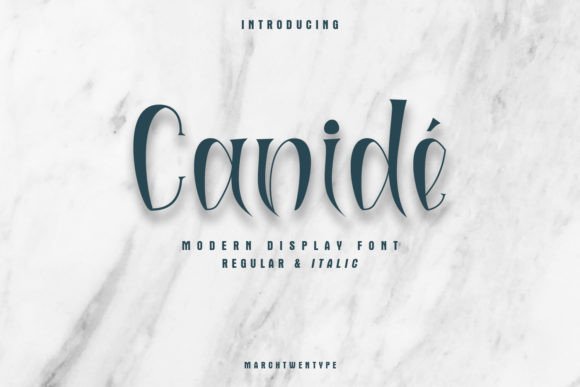
Canidé: A Versatile Display Font for Modern Design
Canidé is a modern display font that stands out for its unique shape and elegant tapering. Designed to balance masculine and feminine aesthetics, it offers a versatile solution for a wide range of design projects. Whether you're working on branding, web design, or print materials, Canidé brings a refined and sophisticated look that can elevate your work.
Understanding Canidé: What Makes It Unique?
At first glance, Canidé might seem like just another display font, but its design philosophy sets it apart. The font features a distinct tapering effect that gives it a sense of movement and elegance. This characteristic makes it ideal for headings, logos, and other visual elements where a strong, memorable presence is needed.
The balance between masculine and feminine traits in Canidé is one of its most appealing qualities. This duality allows it to be used across different industries and styles without feeling out of place. For instance, a tech startup might use Canidé for its website header to convey both innovation and approachability, while a fashion brand could leverage its fluidity for a more artistic touch.
Key Features of Canidé
- Unique Tapering: The font's distinctive shape creates a dynamic visual effect that draws attention.
- Gender-Neutral Aesthetic: Canidé works well for both male and female audiences, making it a flexible choice.
- Modern and Timeless: Its design blends contemporary trends with classic typography principles.
- High Readability: Despite its stylized appearance, Canidé remains legible at various sizes.
Where Canidé Fits Into Your Projects
Canidé is particularly effective in applications where visual impact is crucial. Its bold yet graceful structure makes it suitable for headlines, titles, and other prominent text elements. Here are some common scenarios where Canidé can shine:
- Branding and Logos: Canidé adds a touch of sophistication to brand identities, helping to create a memorable visual presence.
- Web Design: As a display font, Canidé can enhance the aesthetics of websites, especially when used for navigation menus or section headers.
- Print Materials: From business cards to brochures, Canidé brings a polished look to printed content.
- Marketing Campaigns: Its versatility makes it a great choice for advertising, social media graphics, and promotional materials.
Who Benefits from Using Canidé?
Canidé is not limited to a specific audience. Its adaptability makes it valuable for a variety of professionals and creators:
- Graphic Designers: They can use Canidé to add a unique flair to their designs without compromising readability.
- Business Owners: Entrepreneurs looking to establish a strong brand identity can benefit from Canidé’s balanced aesthetic.
- Content Creators: Bloggers, YouTubers, and social media managers may find Canidé useful for creating visually engaging content.
- Web Developers: Those focused on user experience can incorporate Canidé into their designs to enhance visual appeal.
Strengths and Considerations
One of Canidé’s greatest strengths is its ability to blend form and function. Its design is not only visually striking but also practical for a range of applications. However, it’s important to consider how it performs in different contexts. While it excels as a display font, it may not be the best choice for body text due to its stylized nature.
Additionally, the font’s gender-neutral appeal means it can be used across diverse markets, but this also requires careful consideration of the target audience. For example, a font that feels too soft might not resonate with a traditionally masculine audience, even if it’s designed to be neutral.
Real-World Applications of Canidé
Let’s explore a few real-world examples where Canidé has been successfully applied:
- Startup Branding: A new tech company used Canidé for its logo and website title, creating a modern and approachable image that helped attract investors and customers.
- Event Promotions: An art exhibition leveraged Canidé for its promotional materials, giving the event a stylish and cohesive look that stood out from competitors.
- Product Packaging: A boutique skincare line incorporated Canidé into its packaging design, reinforcing a sense of luxury and refinement.
Evaluating Canidé for Your Needs
Before choosing Canidé for your project, it’s essential to evaluate its suitability. Ask yourself questions like:
- Does the font align with the tone and message of my project?
- Will it be readable in the intended context?
- Is it appropriate for the target audience?
- How does it compare to other fonts I’m considering?
Testing Canidé in different formats—such as mockups, prototypes, or sample texts—can help you determine whether it meets your needs. Additionally, consulting with other designers or professionals in your field may provide valuable insights.
Conclusion
Canidé is more than just a font; it’s a tool that can enhance the visual storytelling of your projects. Its unique shape, balanced aesthetic, and versatility make it an excellent choice for designers, businesses, and creators looking to make a lasting impression. Whether you’re launching a new brand, designing a website, or creating marketing materials, Canidé offers a fresh and sophisticated option that can elevate your work to the next level.